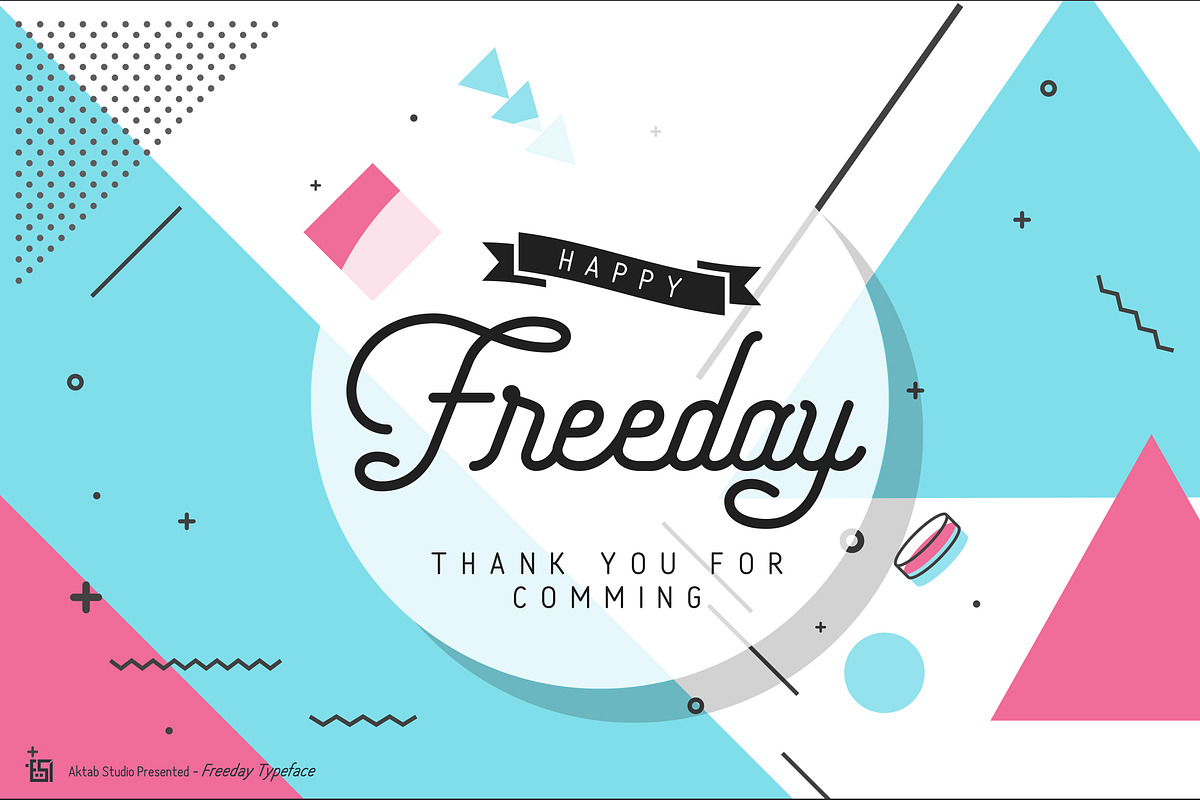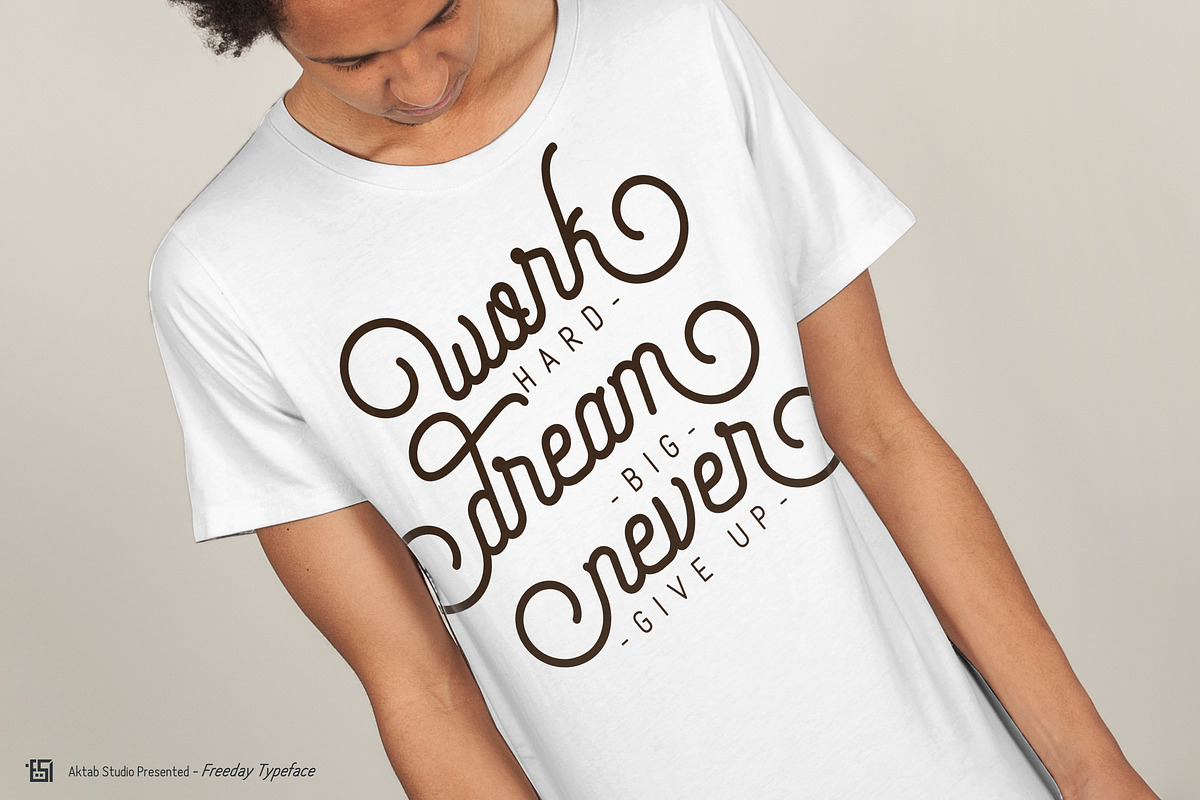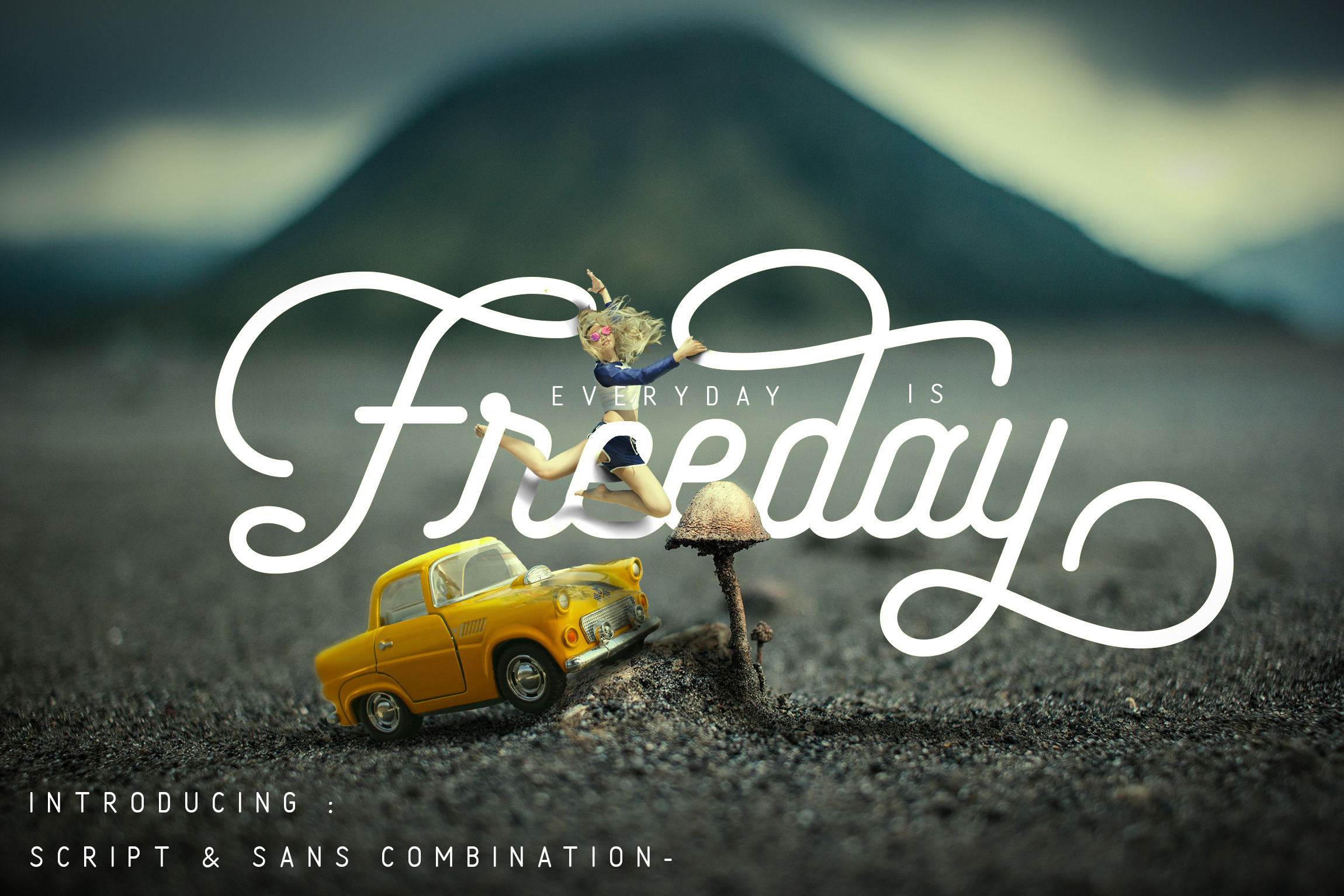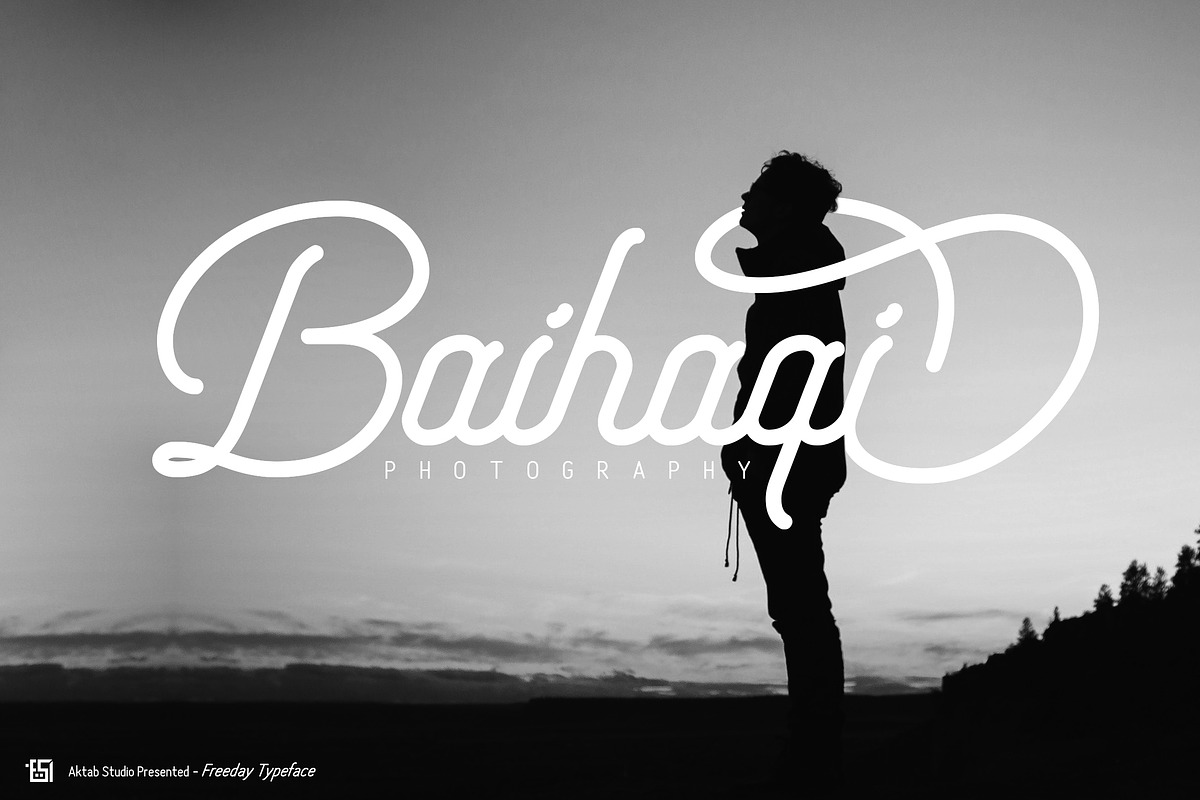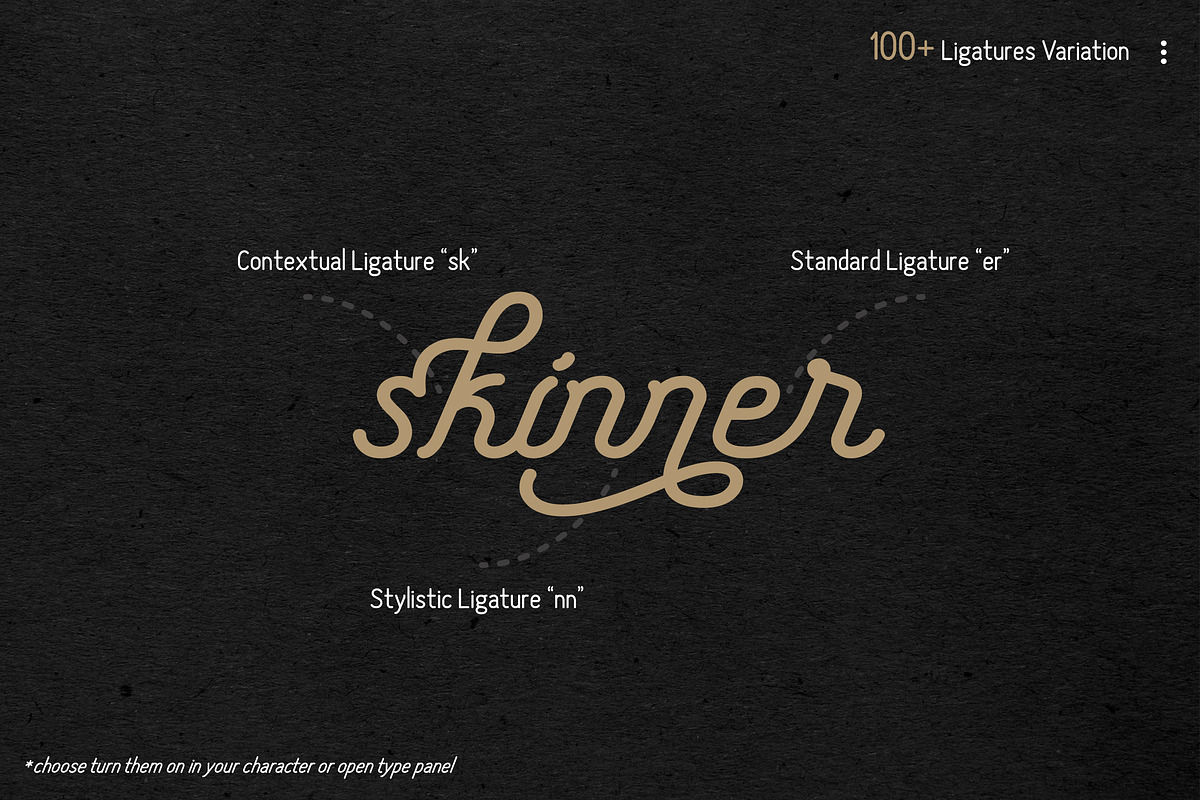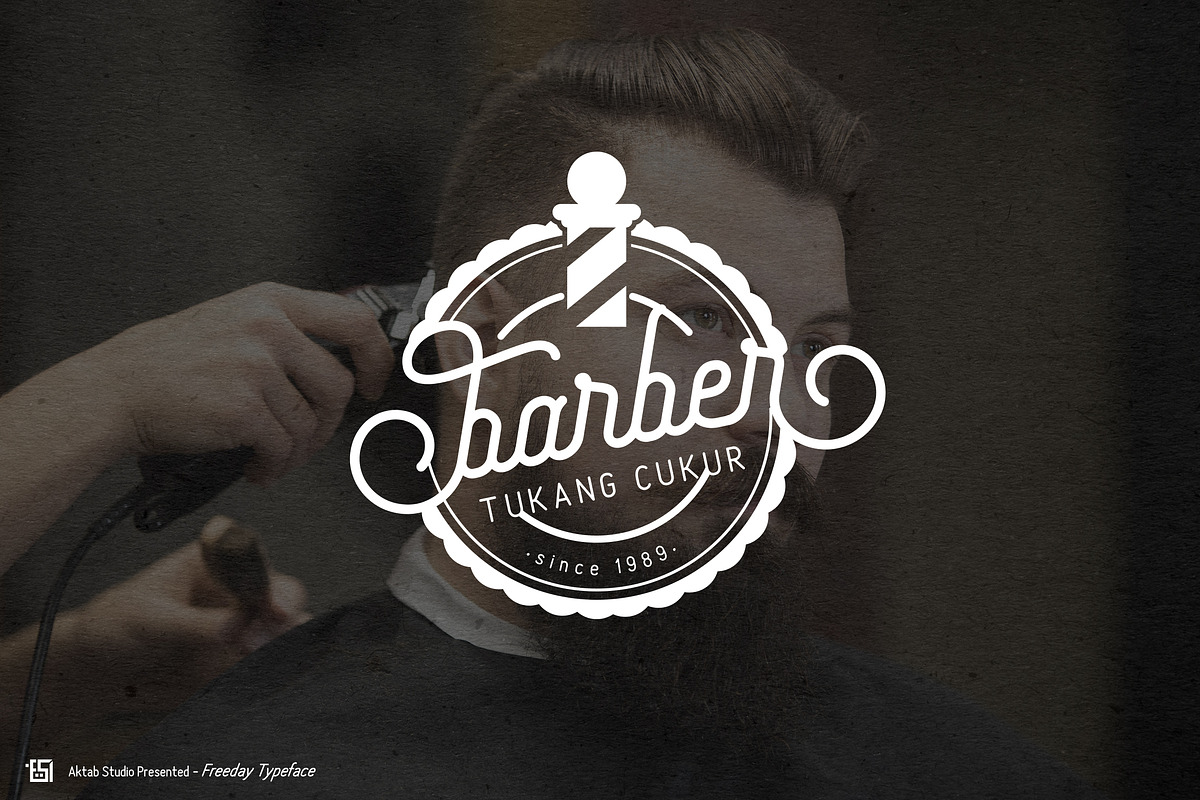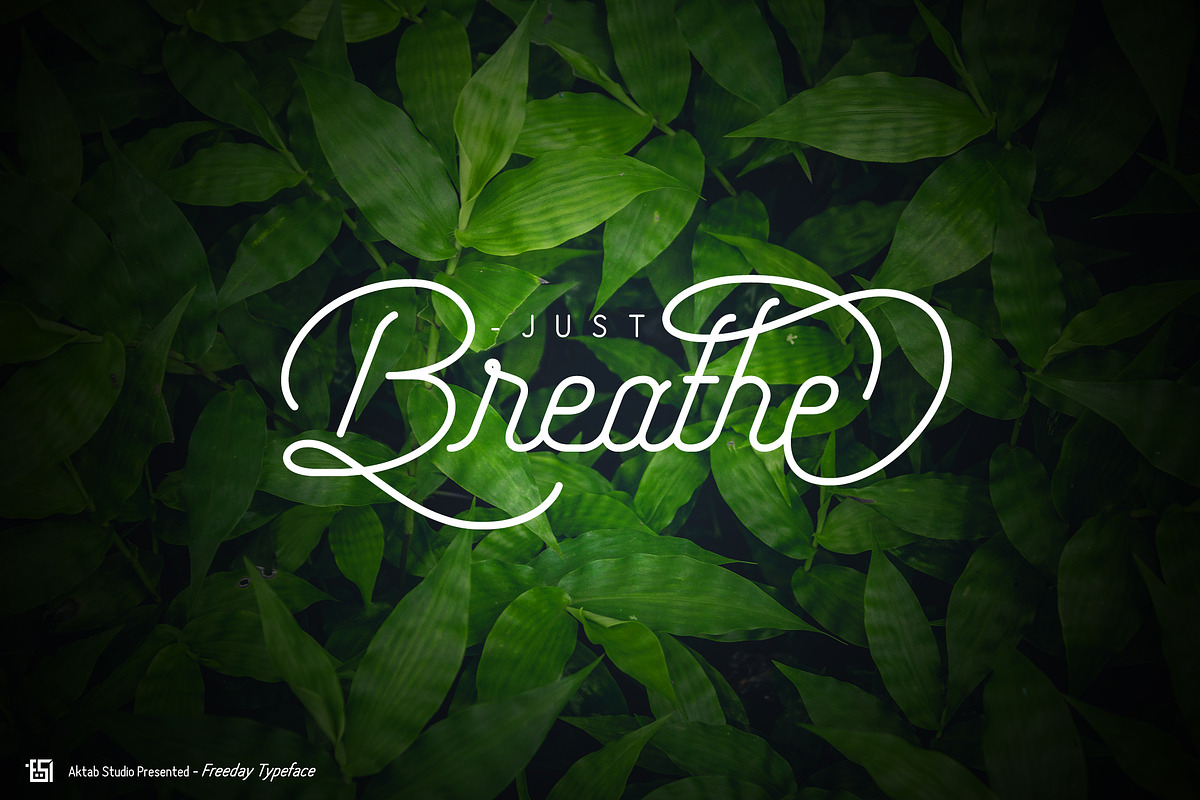
Freeday Script & Sans Font
Freeday Font is a modern font with more featured and made with love :). Freeday Font have a complete glyphs, this font suitable for wedding invitation, greeting cards, T-Shirt, Logo or any design that you create. comes with a complete set of standard characters, Alternates, Ligature Variation, Punctuation & have extra textured version for your design and many more.
The Features of this fonts is:
- UPPERCASE and lowercase
- Numeral and punctuation
- Stylistic Set01 - Stylistic Set21 - Happy Design :)
- Stylistic Alternates and Contextual Alternates
- Textured version & Rough version
- Standart Ligatures and Discretionary Ligature
- Fractions
- Initial and Terminal Forms
- Smallcaps Numeral